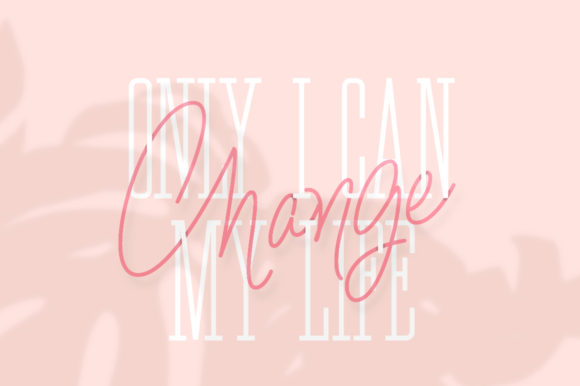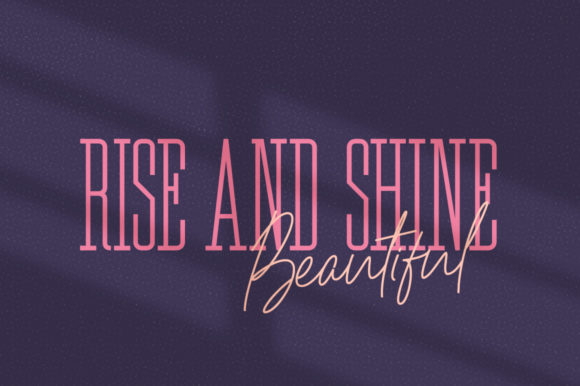
Ultimate Milestone Font
db-ku.com - Script & Handwritten -- Ultimate Milestone combines two gorgeous fonts into one must-have duo. Fall in love with these fonts, and turn them into a true standout!